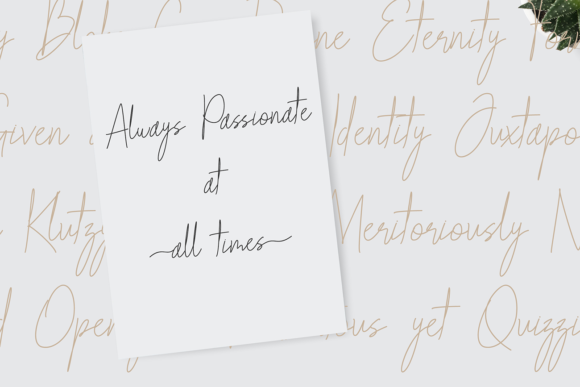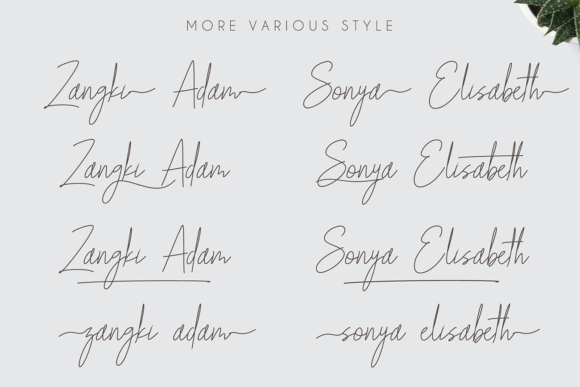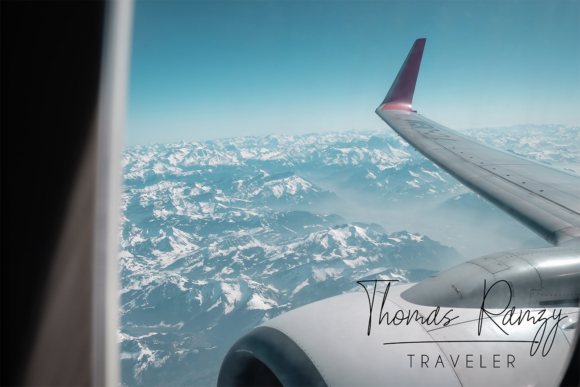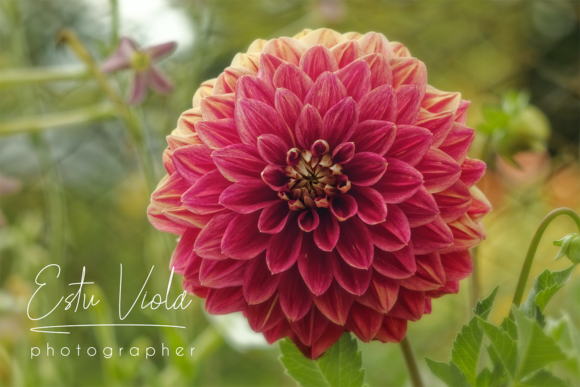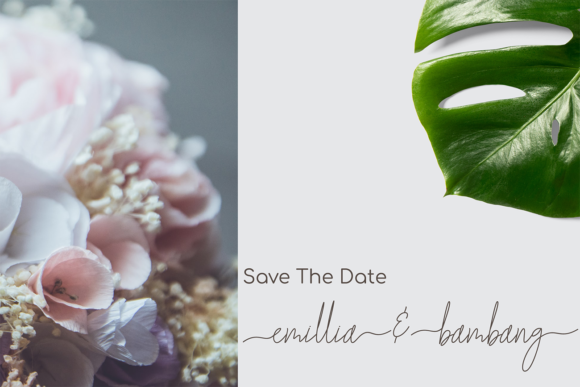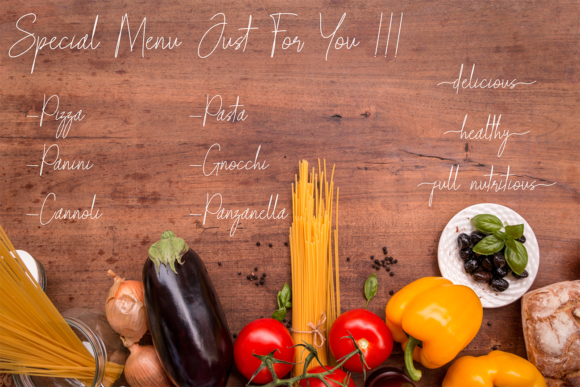
Introduction to Monopente Font
Have you ever been in the middle of a creative project, staring at a blank page or screen, searching for the perfect font to bring your design to life? It’s that moment when the right font can make all the difference between a good design and a great one. For designers, finding the perfect font can be a daunting task, but with the right resource, it can be a game-changer.
That’s where the Monopente Font comes in – a simple and elegant script font that’s perfect for adding a sophisticated touch to your designs. With its PUA encoding, you can access all of the glyphs and swashes with ease, making it a valuable addition to any design resource.
Whether you’re working on a project that requires a high-quality, transparent background or just want to add a touch of sophistication to your design, the Monopente Font is a free download that’s sure to impress.
Key Features of Monopente Font
- High-quality design resource with a unique, elegant style, ideal for creative projects
- Available for free download, making it a valuable asset for designers and artists
- Comes with a transparent background, allowing for seamless integration into various designs
- Monopente Font is available in 3 weights (Light, Regular, Bold) and 2 styles (Regular, Italic)
- Features a high resolution of 300 DPI, ensuring crisp and clear text display
- Perfect for use in logos, typography, and other design elements, thanks to its versatility and sophistication
Honest Review: Monopente Font
I recently stumbled upon the Monopente Font, and I must say it’s a game-changer for any design enthusiast. As a design resource, Monopente Font offers a high-quality, free download that’s perfect for creative projects.
One of the things that works well with Monopente Font is its versatility. It comes with a transparent background, making it easy to use in any design scenario. The font itself is modern, sleek, and perfect for creating a professional look. Whether you’re designing a logo, brochure, or website, Monopente Font is sure to impress. ✨
- High-quality font that’s perfect for professional projects.
- Transparent background makes it easy to use in any design scenario.
However, I do have to mention a few limitations. ⚠️ The font is only available in a few weights, which might limit its use in certain design scenarios. Additionally, the font’s style is quite modern, which might not be suitable for all types of projects.
Overall, I’m impressed with the Monopente Font. It’s a great addition to any design resource collection, and I highly recommend it for any creative project. With its high-quality design and transparent background, it’s a must-have for any designer looking to elevate their work.
Monopente Font
Tips for Getting the Most Out of Monopente Font
Use the Monopente Font on a transparent background to create a modern and minimalist look. Experiment with different font sizes and colors to add depth and interest to your design. You can also combine the Monopente Font with other design elements, such as shapes and icons, to create a unique and eye-catching design.
The Monopente Font is ideal for creative projects, such as logos, branding materials, and marketing materials. It’s also great for designing social media graphics, presentations, and other visual content. With its high-quality design and free download option, the Monopente Font is a valuable resource for designers and non-designers alike.
Does the Monopente Font have a transparent background?
Yes, the Monopente Font has a transparent background, making it easy to use with images or videos that have a transparent or semi-transparent background. This feature is particularly useful for designers who want to create visually appealing and layered designs.